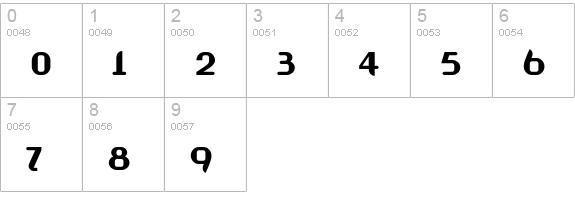
Introducing Shifty font, a mesmerizing typeface that effortlessly captures attention with its unique and dynamic letterforms. This font is perfect for those looking to add a touch of playfulness and creativity to their designs. With its carefully crafted irregular shapes and exaggerated curves, Shifty font exudes a sense of movement and energy that is both captivating and engaging. But what sets Shifty font apart is not just its eye-catching aesthetics, but also the fact that it is completely free to download. Yes, you read that right! This incredible font is freely available to all design enthusiasts, making it a must-have for anyone looking to elevate their projects without breaking the bank. To get your hands on Shifty font, simply head over to FontsMarket.com, the go-to platform for all your font needs. With just a few clicks, you can download this amazing typeface and start exploring the endless possibilities it brings to your designs. Whether you're working on a logo, poster, website, or any other creative endeavor, Shifty font is sure to make a bold statement and leave a lasting impression. So don't miss out on the opportunity to enhance your designs with this remarkable font that combines style, versatility, and affordability. Download Shifty font for free today at FontsMarket.com and let your imagination run wild.